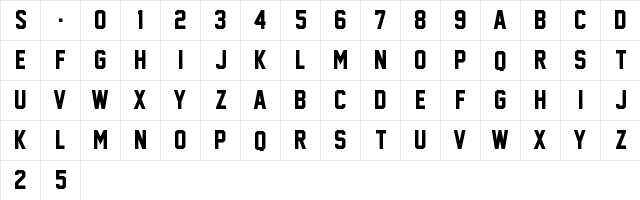
Jersey M54 Regular
Design Context for Jersey M54 Typeface
Jersey M54 has the bold swagger of sports branding: strong, assertive letterforms designed to dominate headlines and jerseys alike.
A natural choice for gym brands, fantasy sports, jersey lettering, and action-driven headlines.
Pro Tip: Use Jersey M54 in all-caps headlines where its athletic energy can fully express itself. Pair with a solid, simple sans for supporting text.